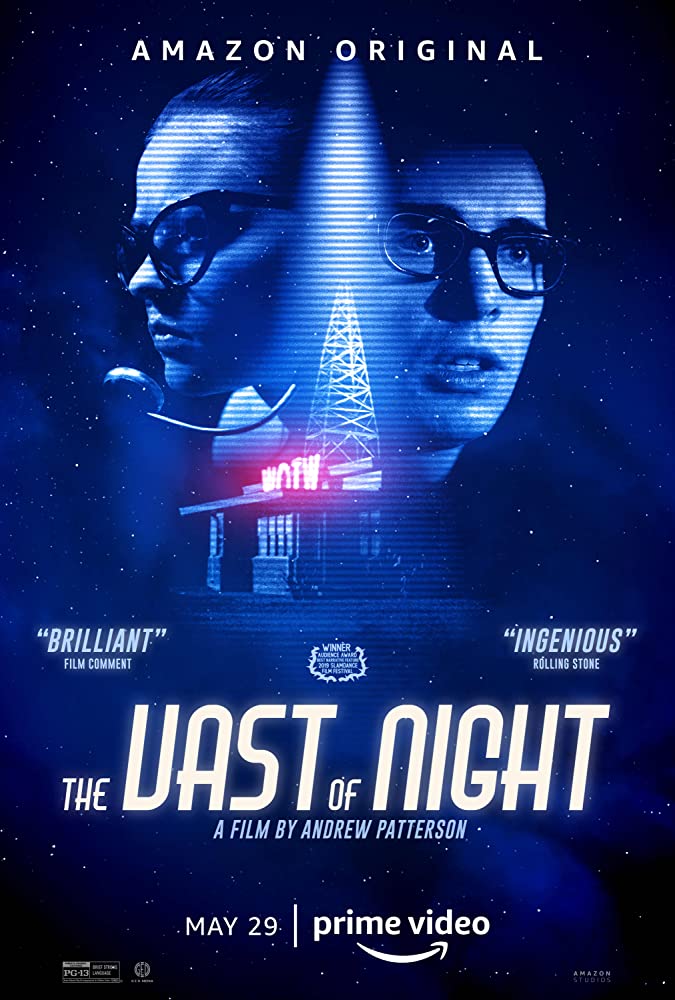
The Vast of Night Font
On the movie poster, the font used for the title "The Vast of Night" is Air Americana, which is a free sans serif designed by Tiago Sá. The font was inspired by the lettering used in the logo of Air America. You can download the font for free here at FontGet.